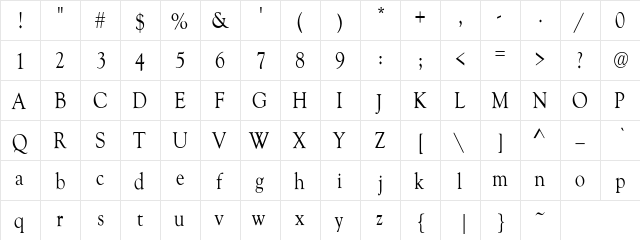
GoudyCnd-Normal Regular
Design Context for GoudyCnd-Normal Typeface
GoudyCnd-Normal offers clean, dependable letterforms without strong stylistic allegiance, making it a practical choice for designers who need flexibility.